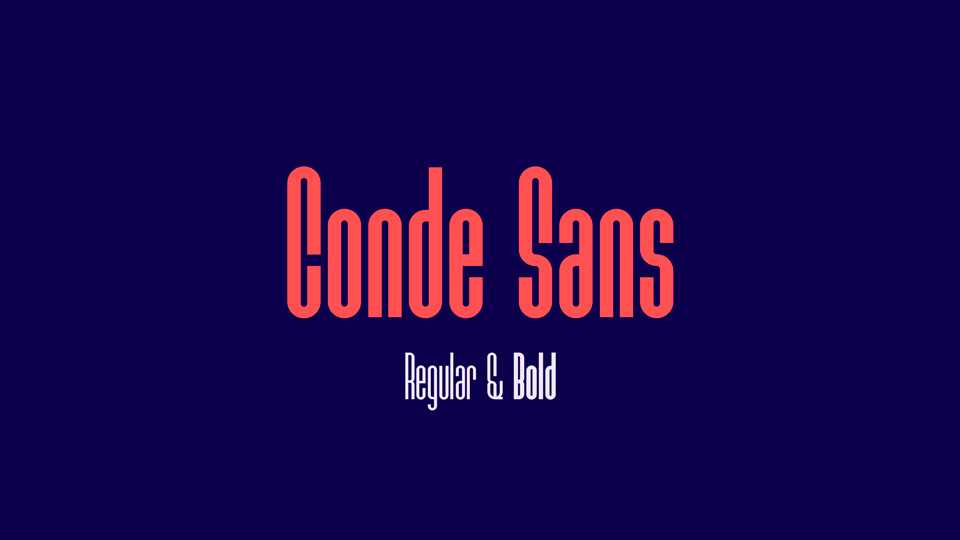
Download Conde Sans typeface, an ultra condensed sans serif font family in two weights. Conde Sans is best for posters, headlines, short paragraphs of text and other creative projects.
Designer: Tomás Castiglioni